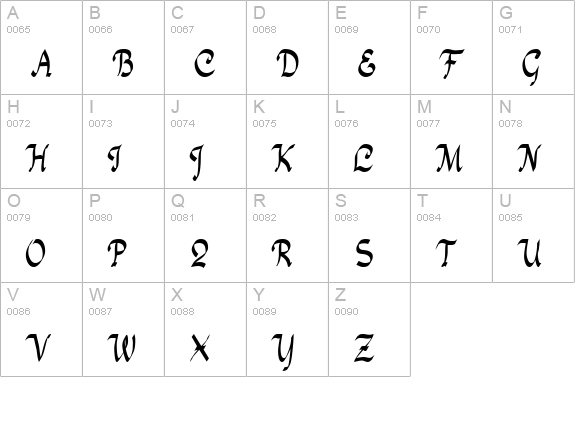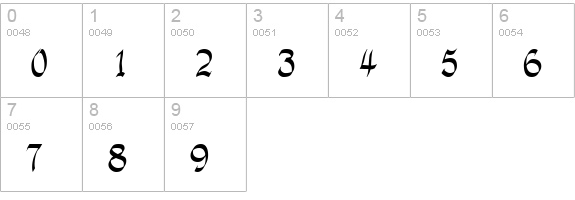
Rosary Bold is a strong, high-contrast variant in the Rosary typeface family \xE2\x80\x94 well suited to headlines, attention-grabbing titles, and strong calls-to-action.
Rosary Bold font is a stunning display typeface that exudes elegance and sophistication. Its thick, bold strokes make a powerful statement, perfect for adding impact to your design projects. The unique serifs and distinctive letterforms of Rosary Bold give it a timeless and classic appearance, making it a versatile choice for a variety of applications. What's even better is that Rosary Bold font is available for free download at FontsMarket.com. This means you can easily access this beautiful font and use it in your personal or commercial projects without any cost. Don't miss out on the opportunity to enhance your designs with the striking beauty of Rosary Bold font. Download it now and elevate your typography game!